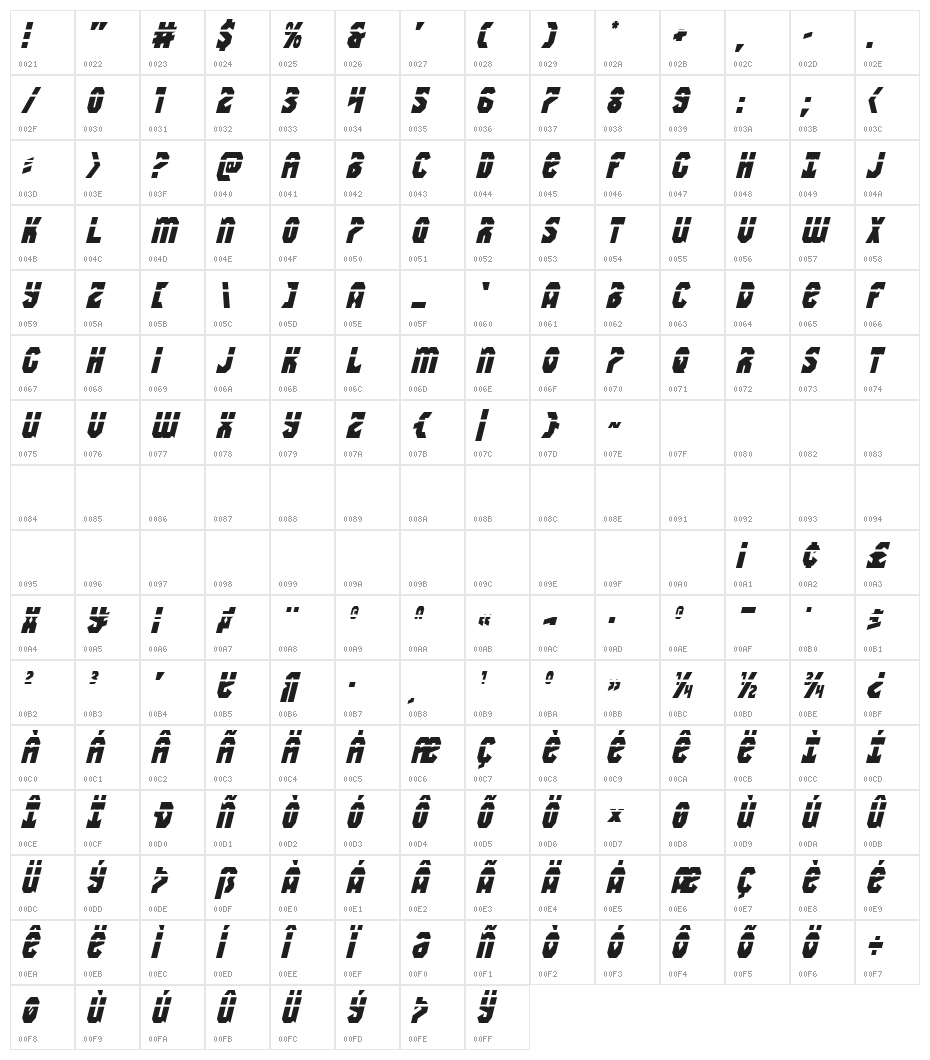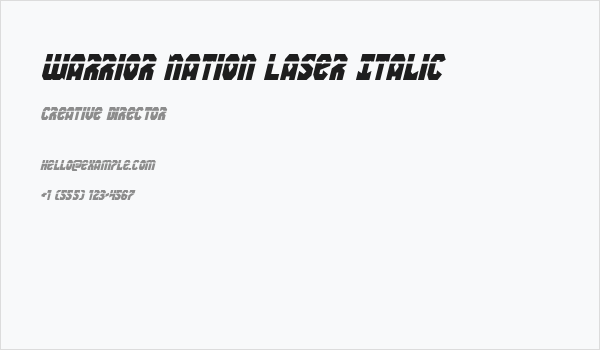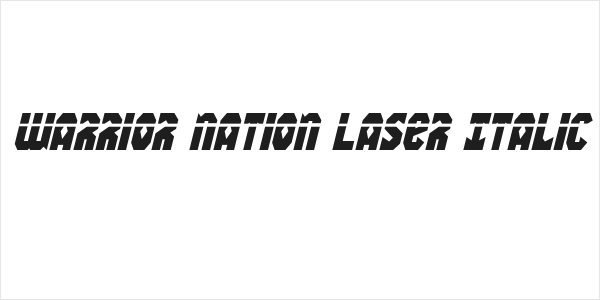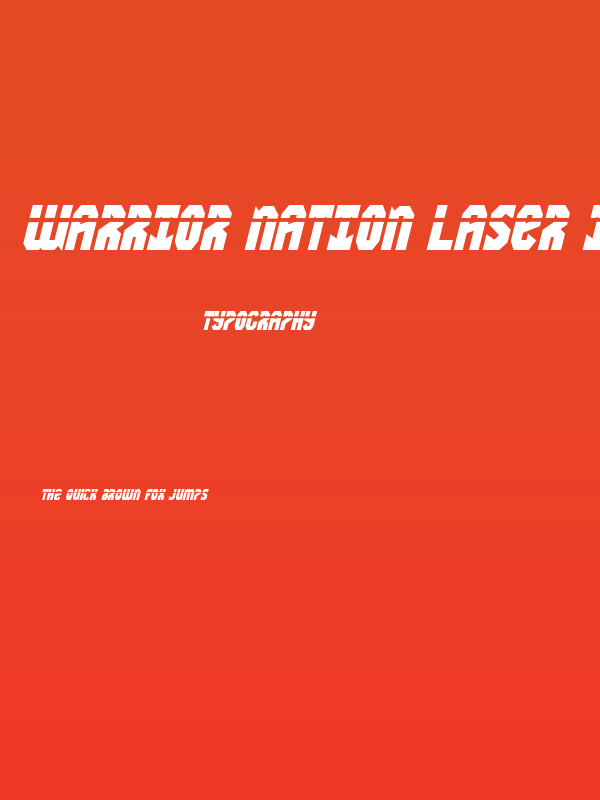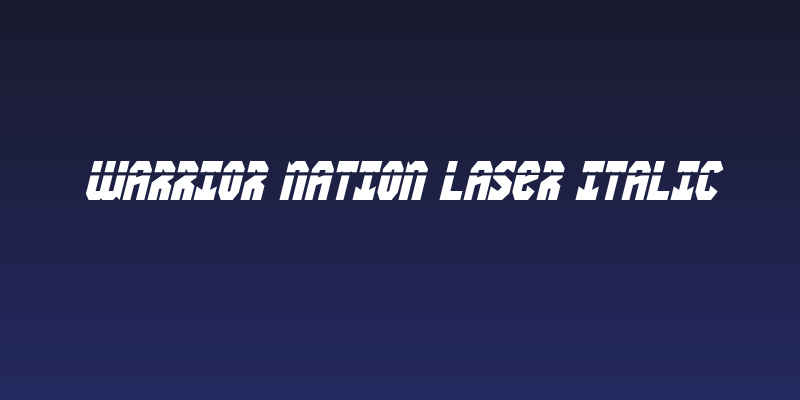
Warrior Nation Laser Italic Font
Warrior Nation Laser Italic Description
This font features a bold, angular design with a futuristic and dynamic appearance. The characters are sharply cut, giving a sense of movement and energy. The italic slant enhances its aggressive and modern look, making it ideal for attention-grabbing designs. The uppercase and lowercase letters maintain a consistent style, with geometric shapes and sharp edges. Numbers and special characters follow the same aesthetic, ensuring uniformity across all text elements. The font's unique style is reminiscent of sci-fi themes and high-tech environments.
| Proposed Projects | Ideal for sci-fi themed posters, video game titles, tech branding, and futuristic event flyers. |